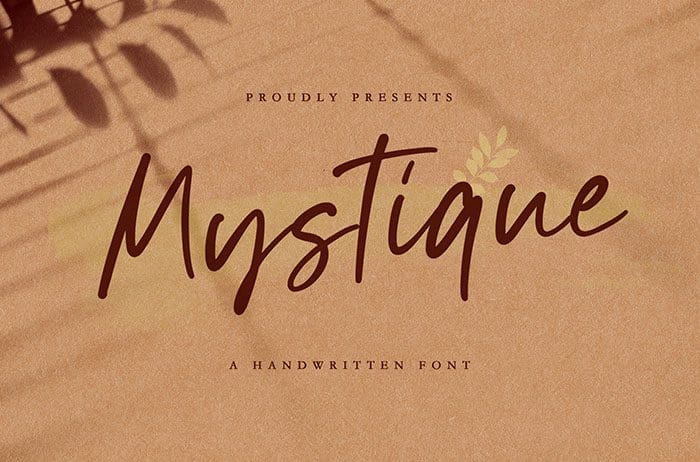
Mystique Luxury Handwritten Font
Mystique luxury handwritten font, This font inspiring from Logo Brand who used font as their logo (Logotype). This font is perfect for fashion brand, wedding invitation, business card, logo brand, signature, and then calligraphy. This font is available only for personal use. Created this font by StringLabs. You can also search more freeĀ Fonts. Thanks.